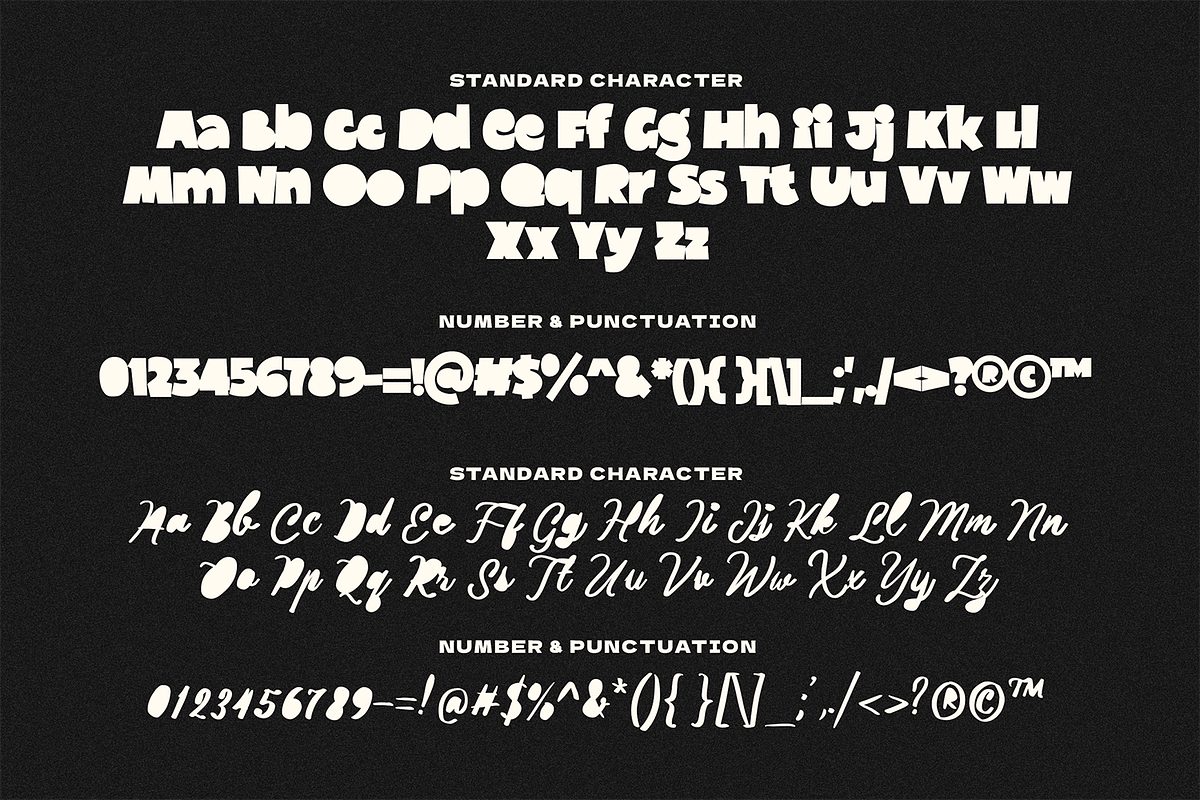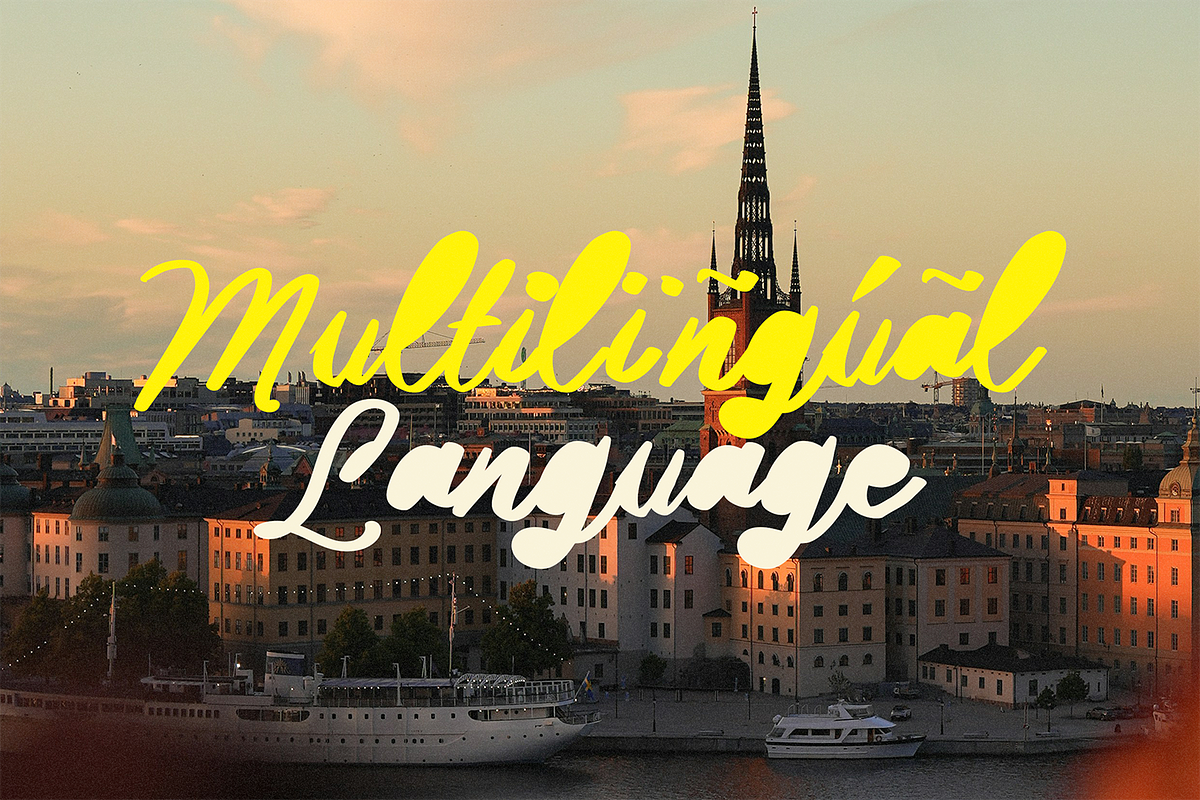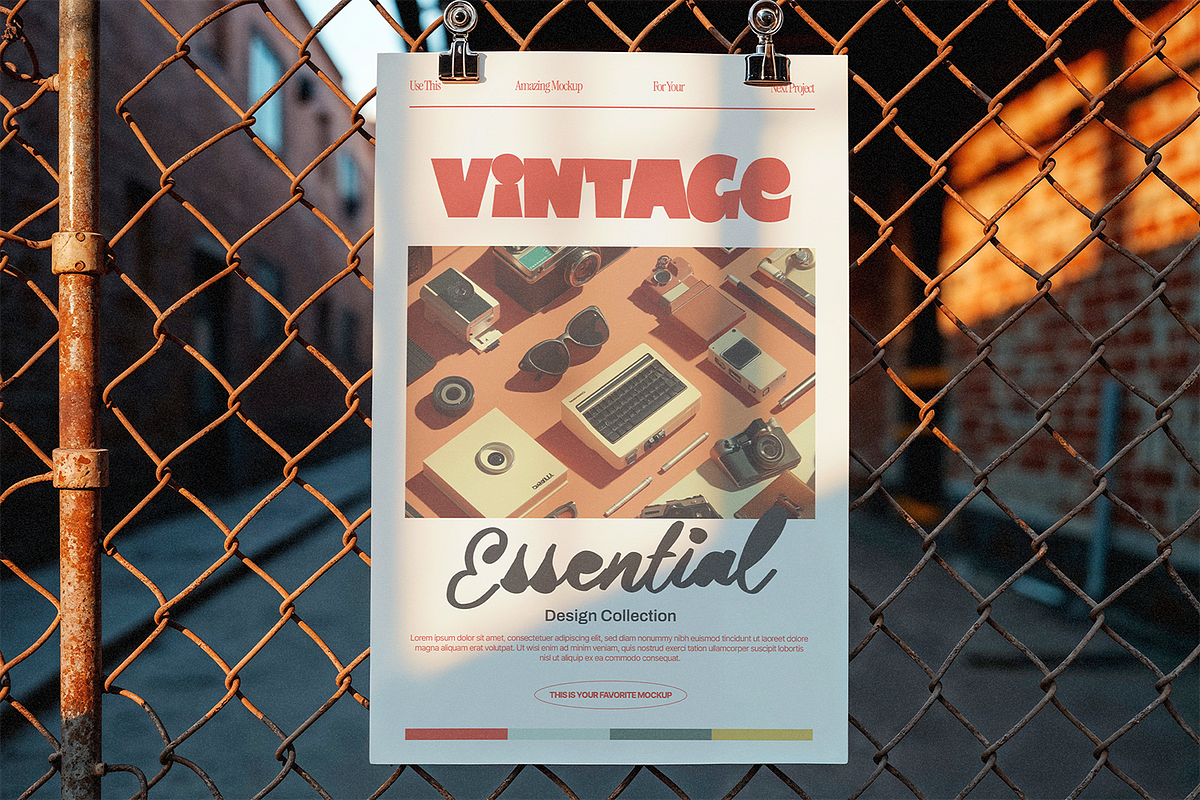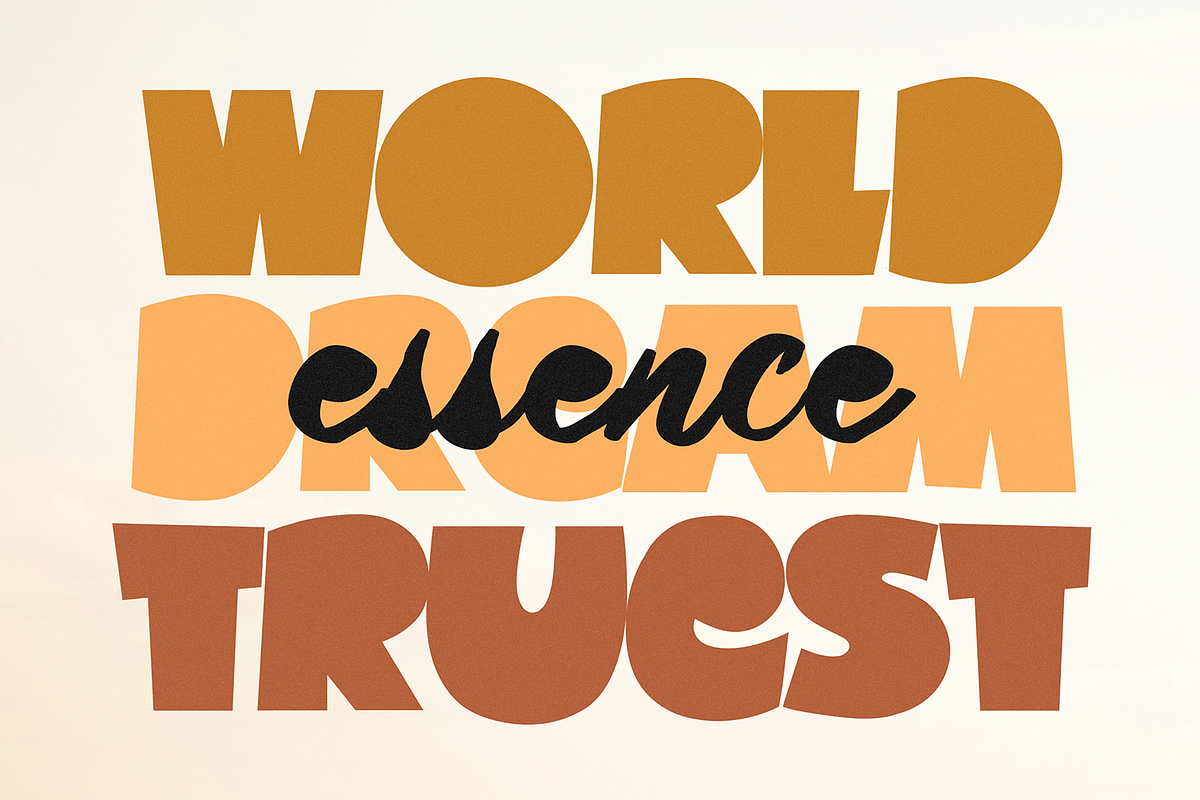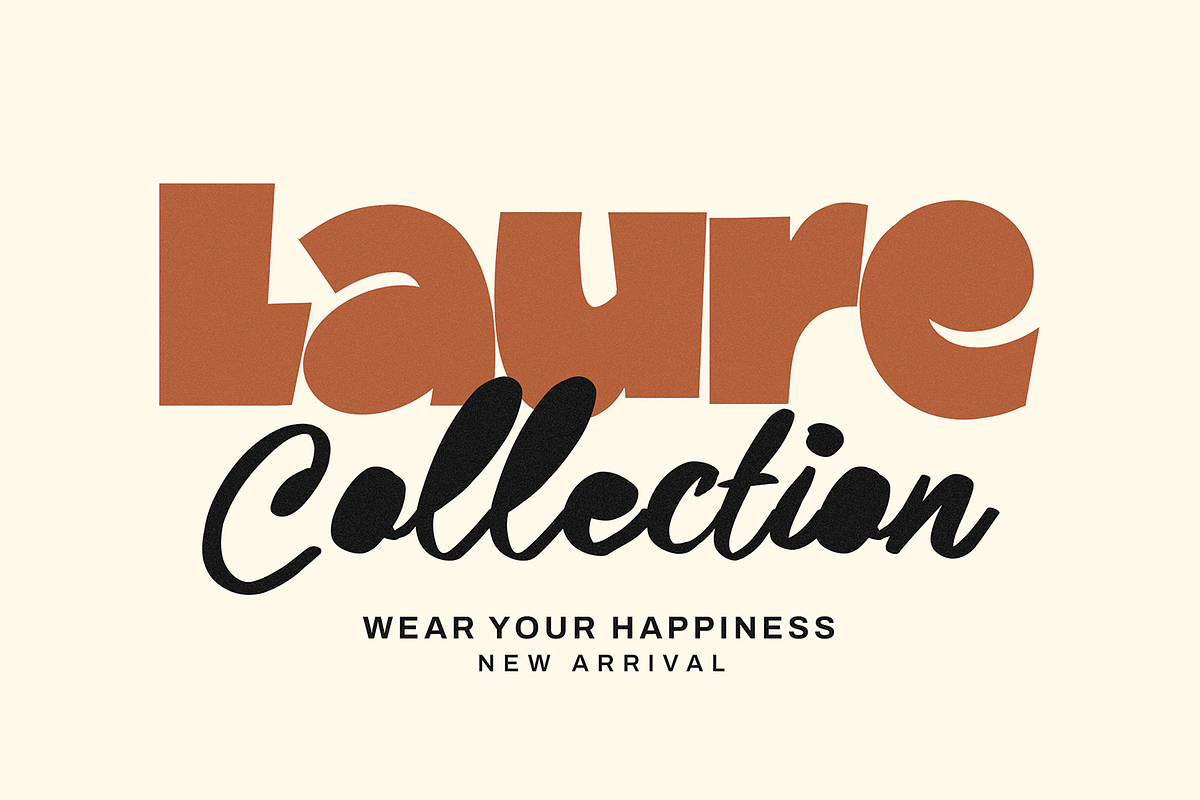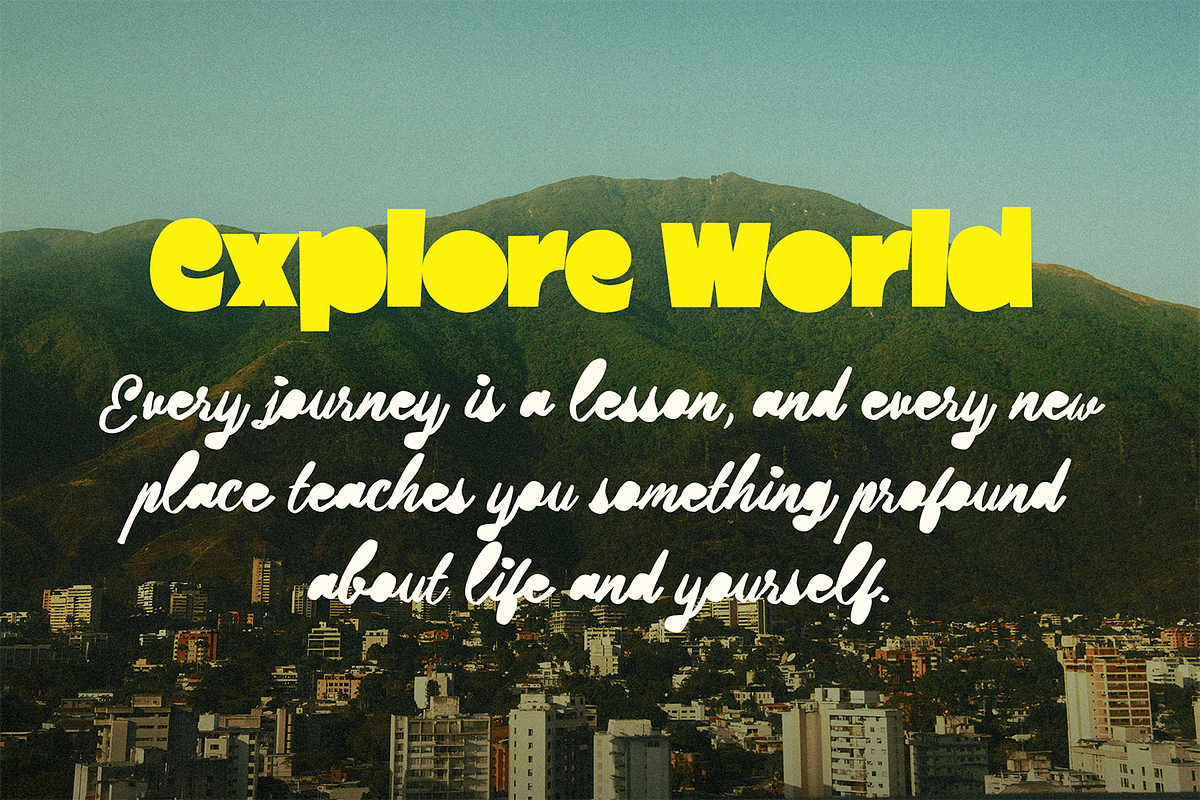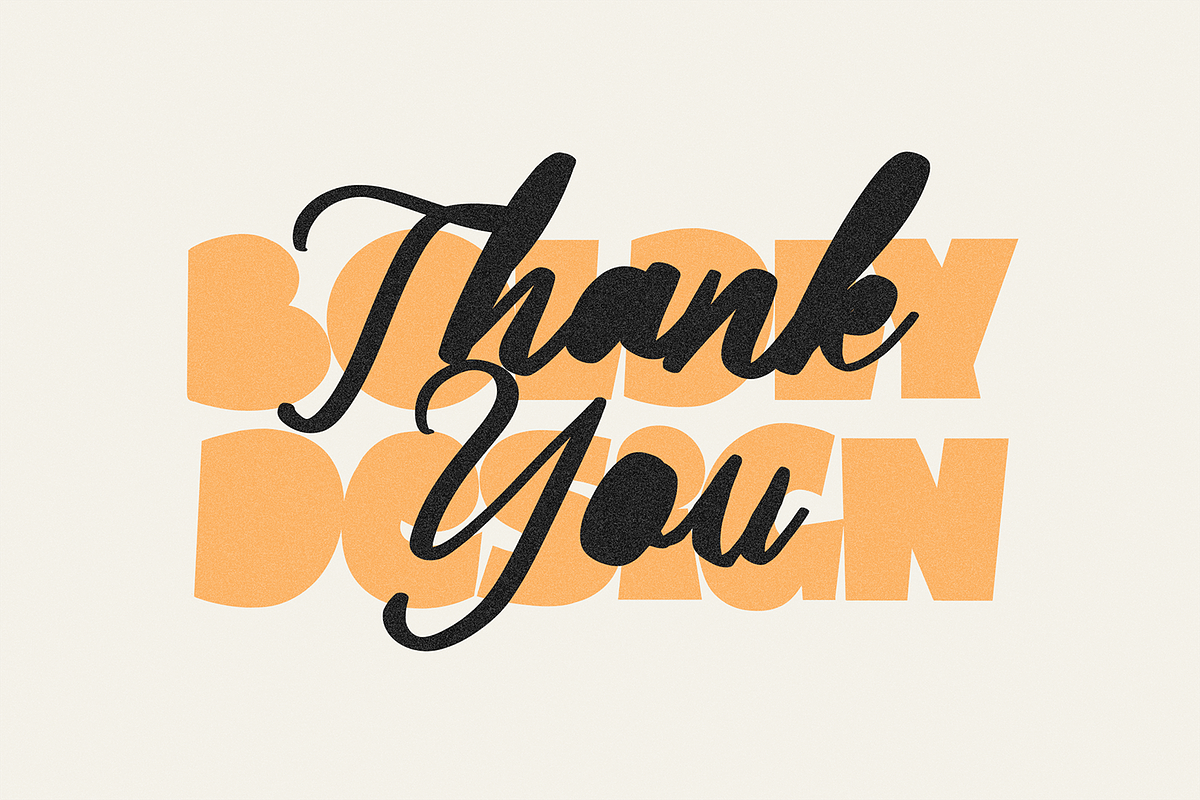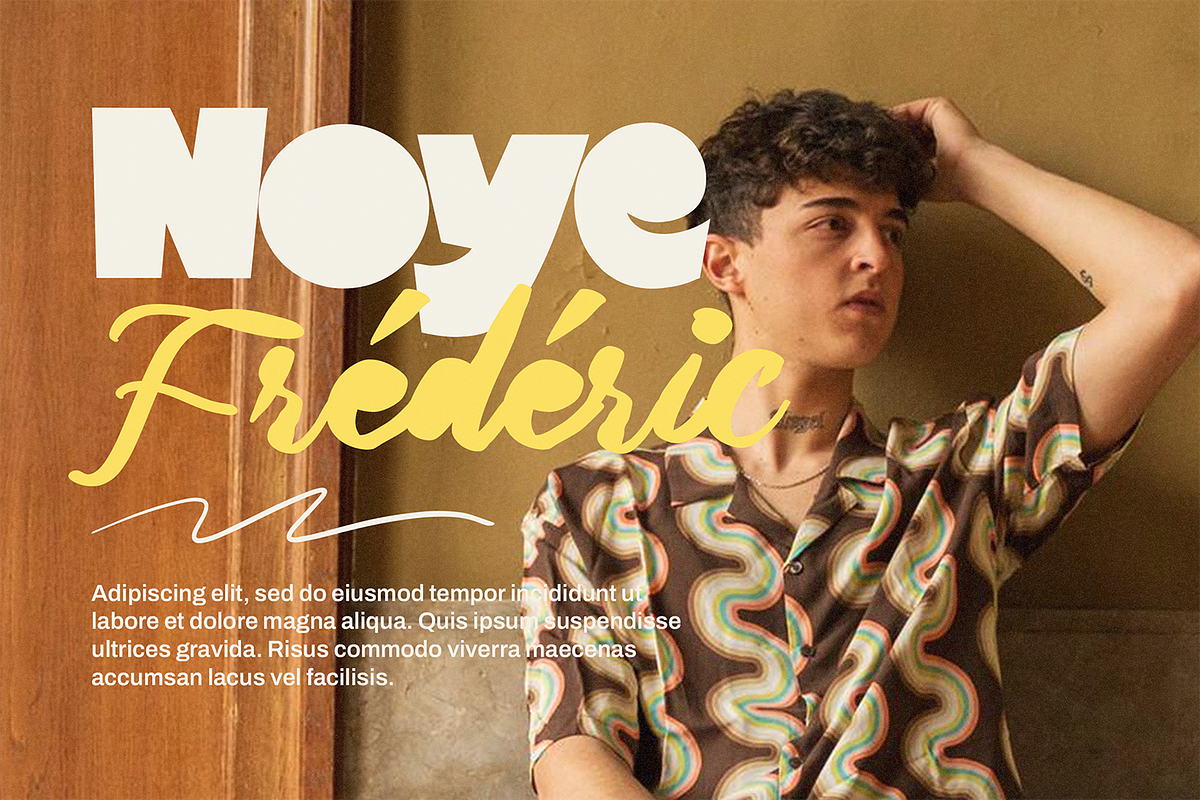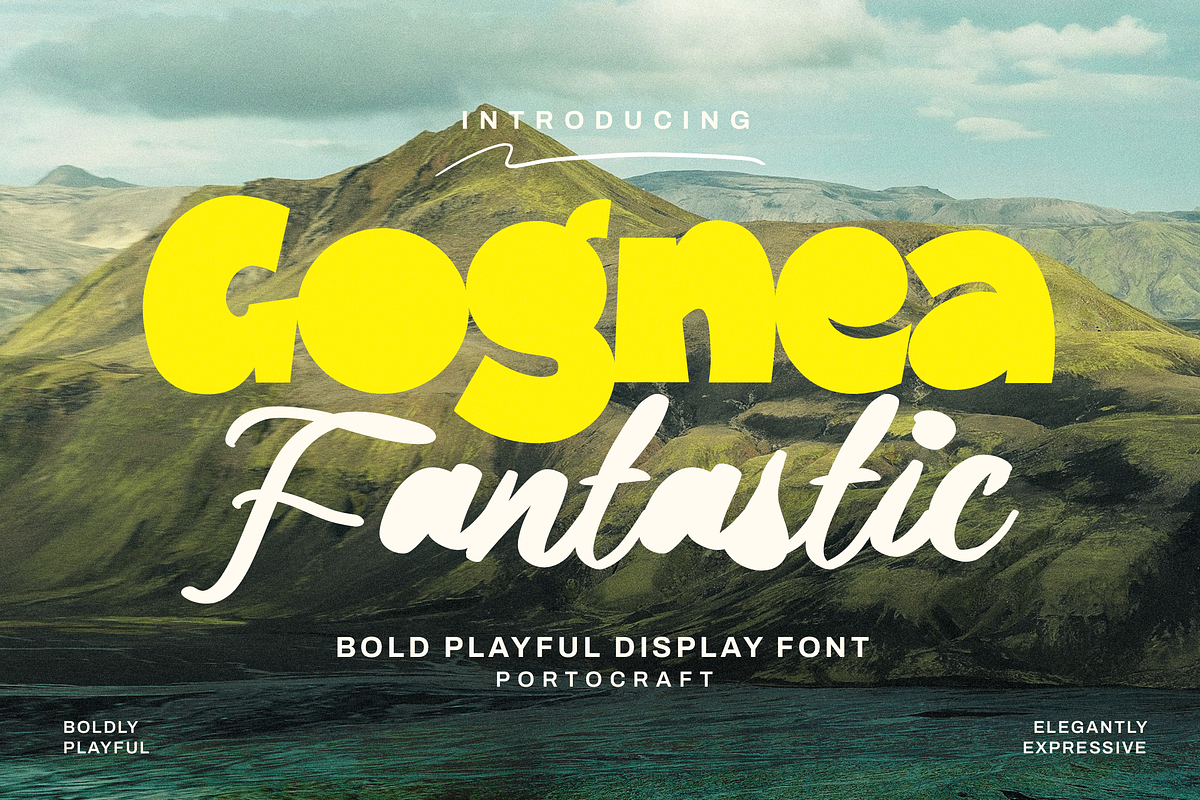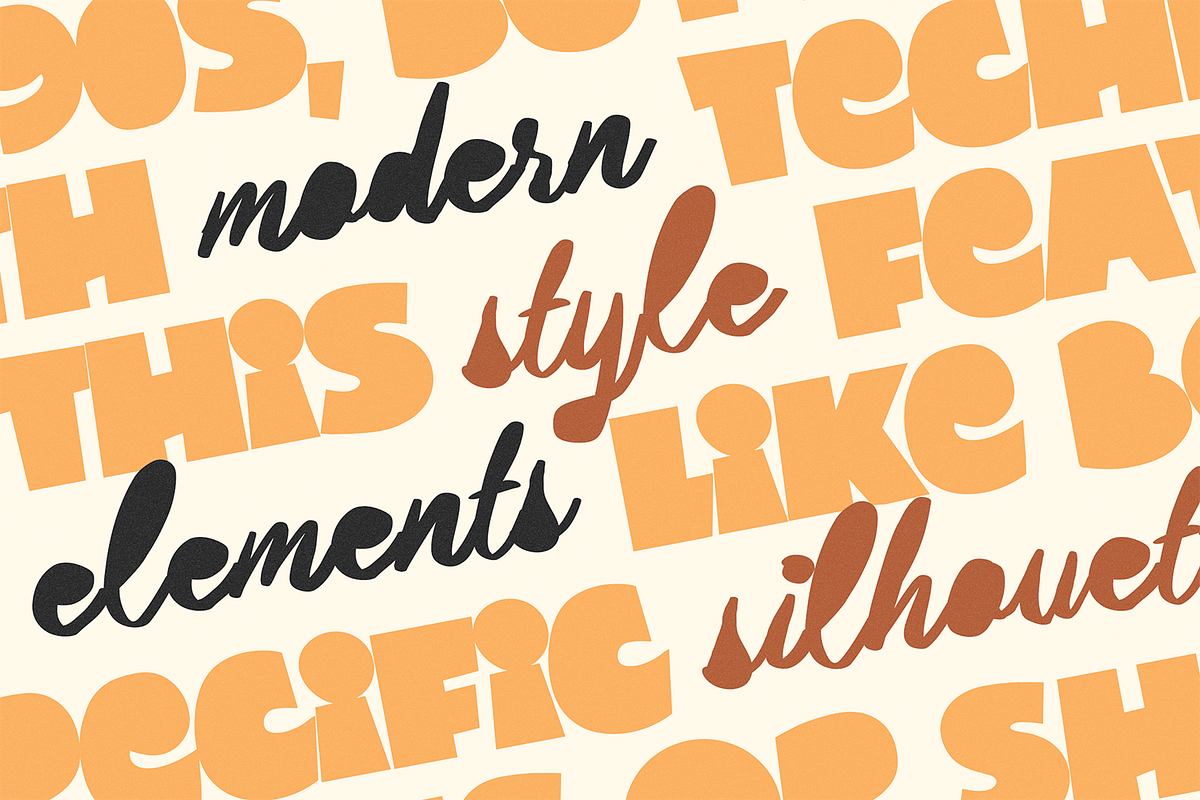
Gognea Fantastic Duo
Gognea Fantastic Duo is a bold and playful display font that radiates energy, creativity, and modern charm. With its chunky letterforms and expressive curves, this font is designed to grab attention and bring a sense of fun to any design. It combines boldness with elegance, making it suitable for both casual and stylish projects.
Perfect for posters, social media graphics, branding, product packaging, book covers, headlines, and event invitations, Gosnea Fantastic ensures your message stands out with confidence. Whether you’re creating vibrant promotional materials or designing playful creative projects, this font adds a unique, dynamic touch.
Unleash your imagination with Gosnea Fantastic — a display font that is both boldly playful and elegantly expressive, ready to transform your designs into something unforgettable.